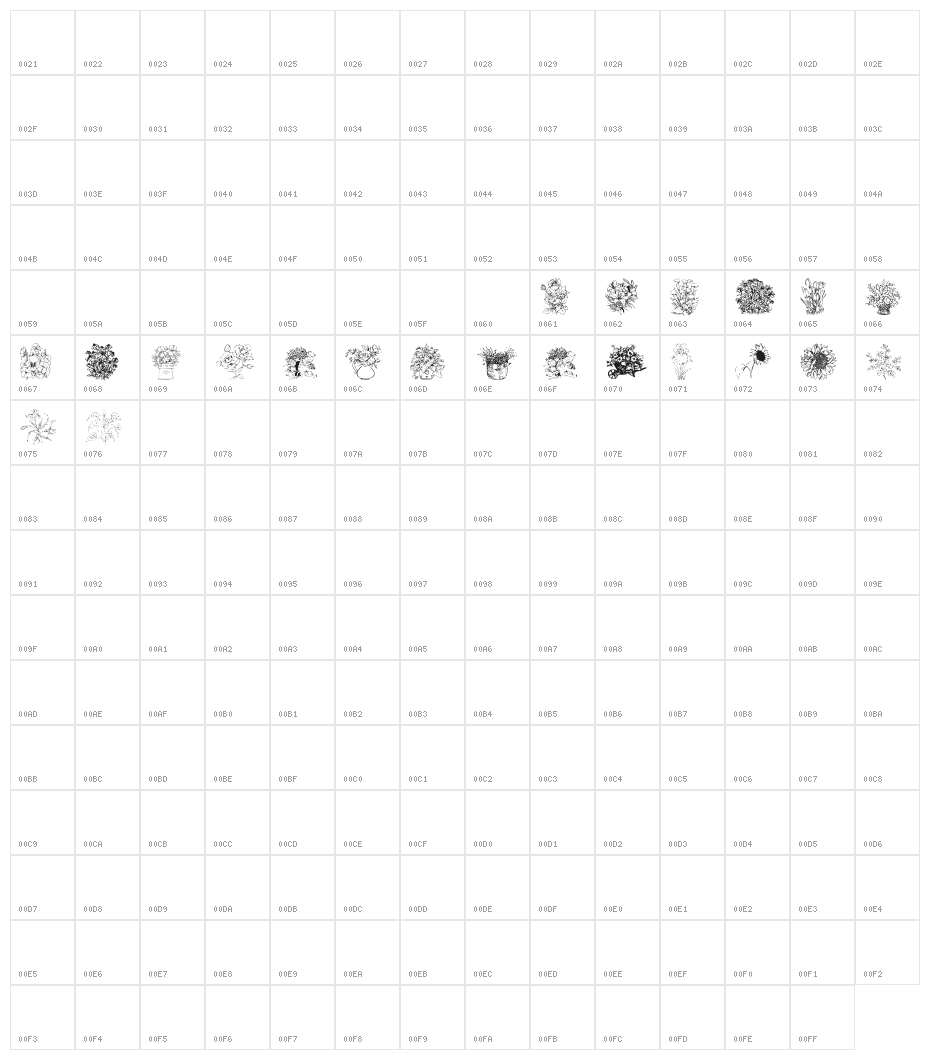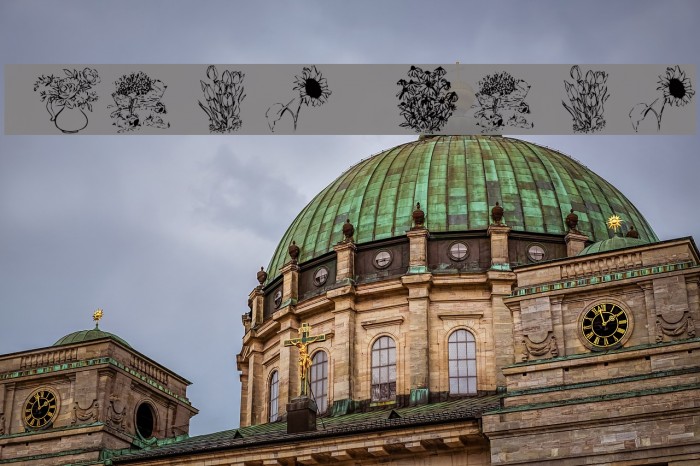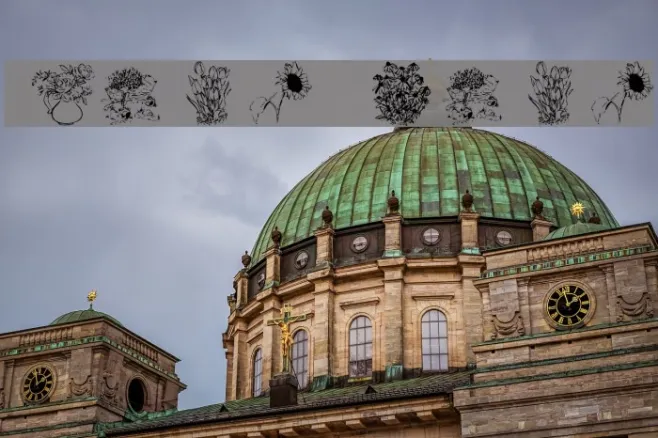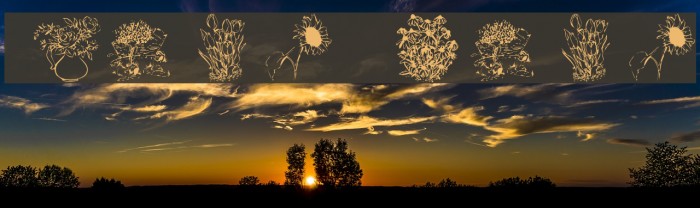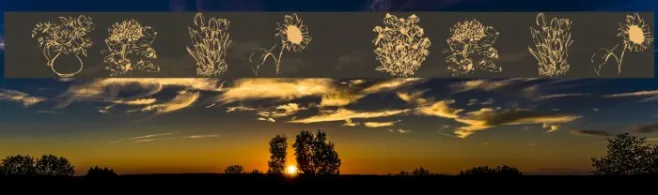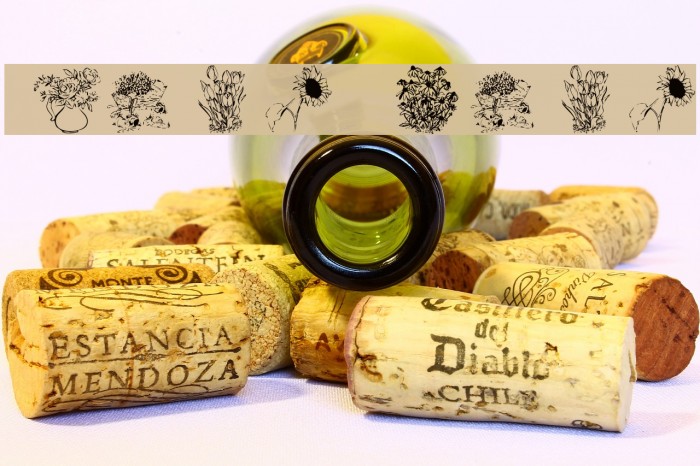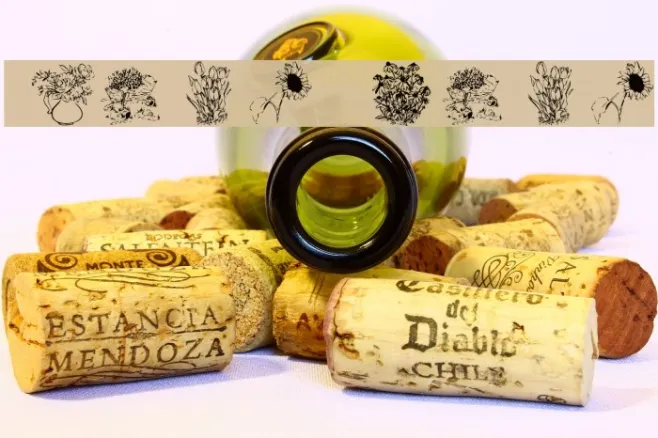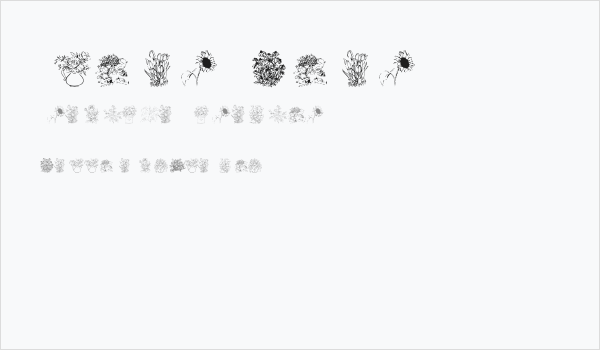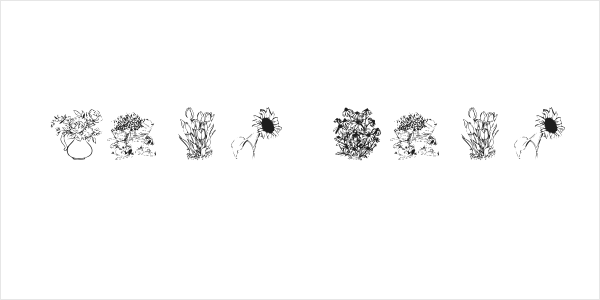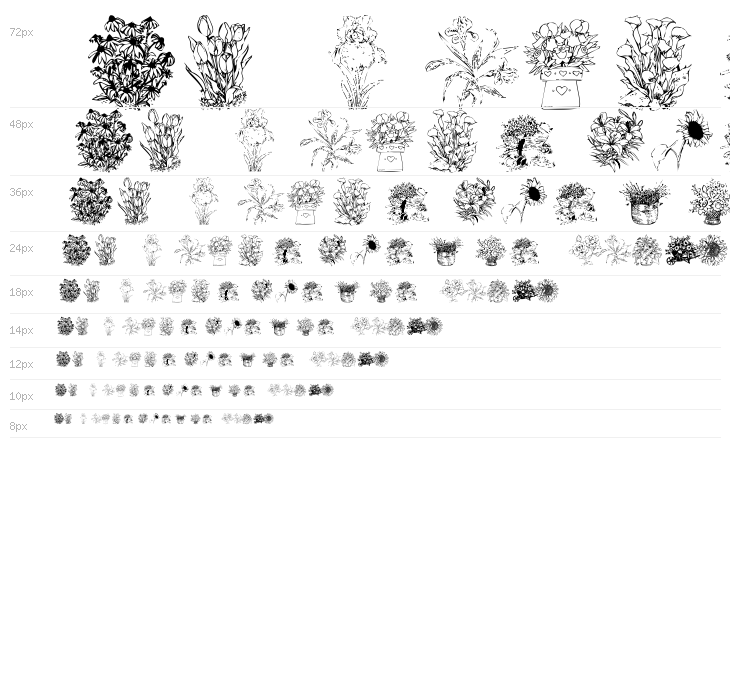
Flower Shower Font
Flower Shower Description
A decorative collection of detailed, hand-drawn floral illustrations, each representing a different arrangement or bouquet. The designs are intricate, with fine line work and organic shapes, evoking a natural, botanical feel.
| Overall Style | Decorative, Botanical, Hand-drawn |
| Use Case | Decorative elements, Illustrative accents, Themed branding |
| Proposed Projects | Greeting cards, wedding invitations, botanical posters, scrapbooking, decorative packaging. |